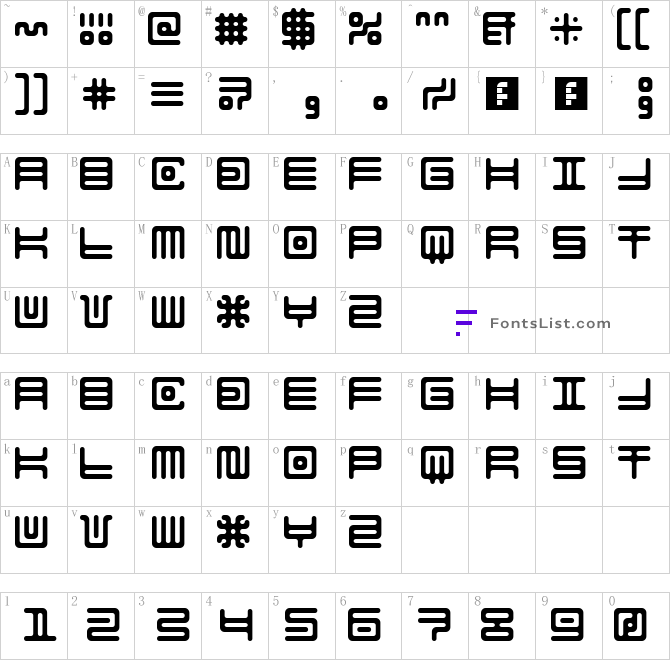
- Font Name:Alien double
Alien-double-Regular.ttf is a very beautiful artistic font, Alien-double-Regular.ttf is widely used in the design and printing of various books and pictures,Alien-double-Regular.ttf has a strong visual impact,Alien-double-Regular.ttf is a commonly used font in newspapers, magazines and books, and is used in posters, e-commerce Poster design, store design, logo design, font design and other fields.Alien-double-Regular.